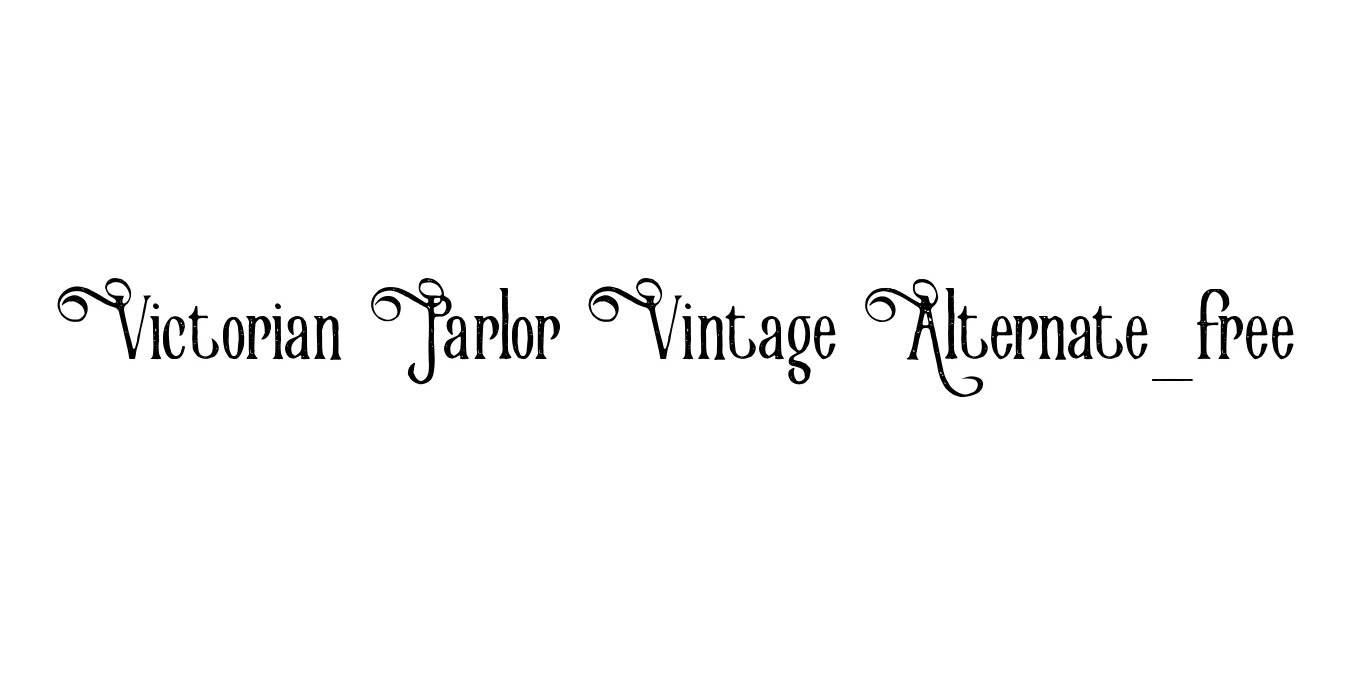
Victorian Parlor Vintage Alternate_free
Designed by Burntilldead (Eric Kurniawan)
Victorian Parlor Vintage Alternate is a meticulously crafted typeface inspired by the aesthetic of the 19th-century Victorian era. Developed by the design studio Burntilldead, this font captures the essence of vintage hand-lettering found on traditional shop signs, circus posters, and apothecary labels. The design features high-contrast strokes and ornate flourishes that evoke a sense of heritage and nostalgic craftsmanship, making it a standout choice for projects requiring a touch of classical elegance.
This Alternate version provides designers with a variety of stylistic characters and swashes, allowing for deeper customization and unique typographic layouts. Its robust letterforms are balanced by intricate decorative elements, ensuring that the text remains legible while providing a strong visual impact. Whether used for branding or editorial design, Victorian Parlor brings a sophisticated, old-world charm to modern digital and print media.
Victorian Parlor Vintage Alternate_free Best Uses
Creating powerful logos and identity systems for craft spirits or boutique barber shops.
Designing labels for artisanal products like coffee, soap, or vintage-style beverage bottles.
Eye-catching display typography for event posters and theatrical announcements.
Adding a sense of formal elegance and nostalgia to wedding invites or themed event stationary.